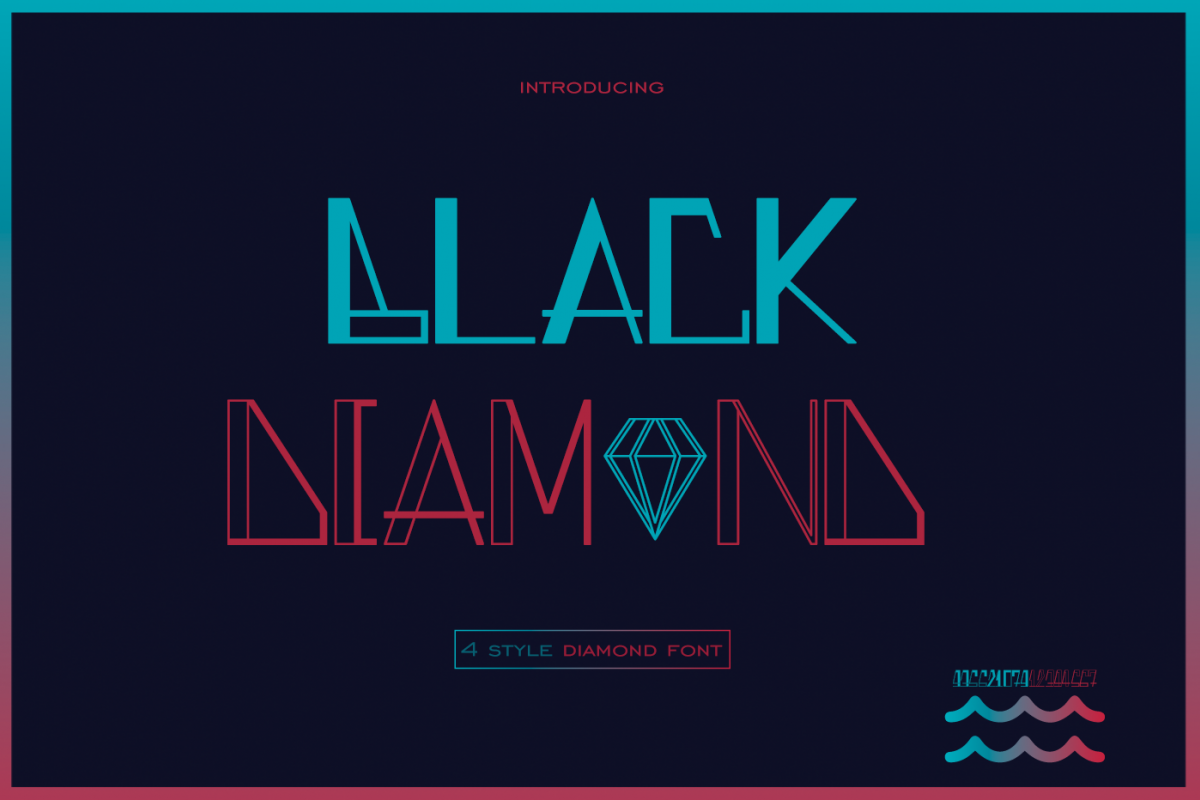
Black Diamond
** BLACK DIAMOND FONT **
Let me introduce you the font ** Black Diamond Font . It flows like a signature while you type it. It really shows the art of hand-work.There are  4 alternatives for this font also You will access Black Diamond Font which can be used within the former one. Have a good luck for enthusiastic and amazing designs.
- Black Diamond
- Black Diamond Alternate 1
- Black Diamond Alternate 2
- Black Diamond Alternate 3
- Bonus Glyhps